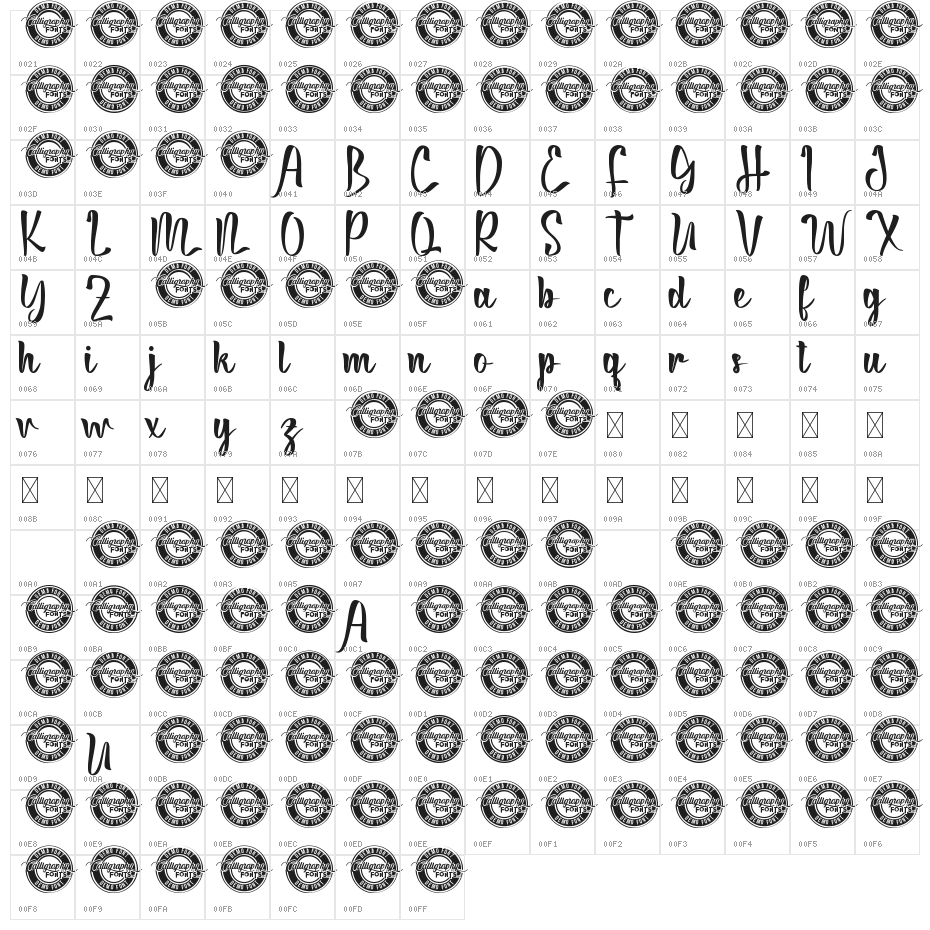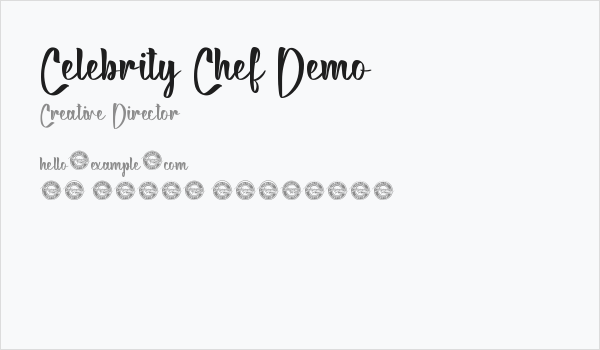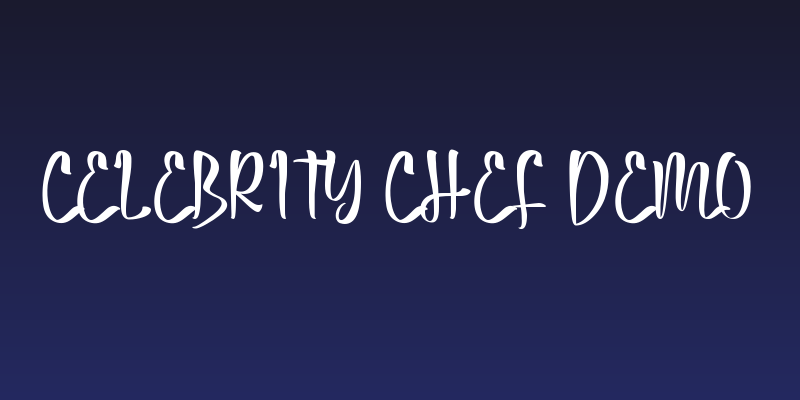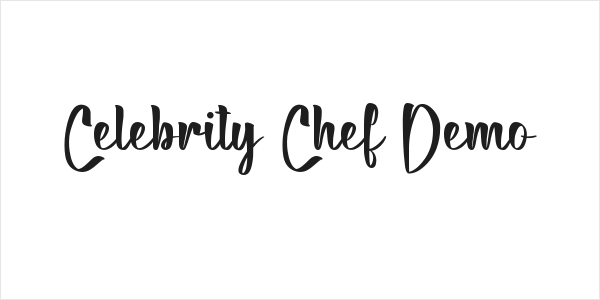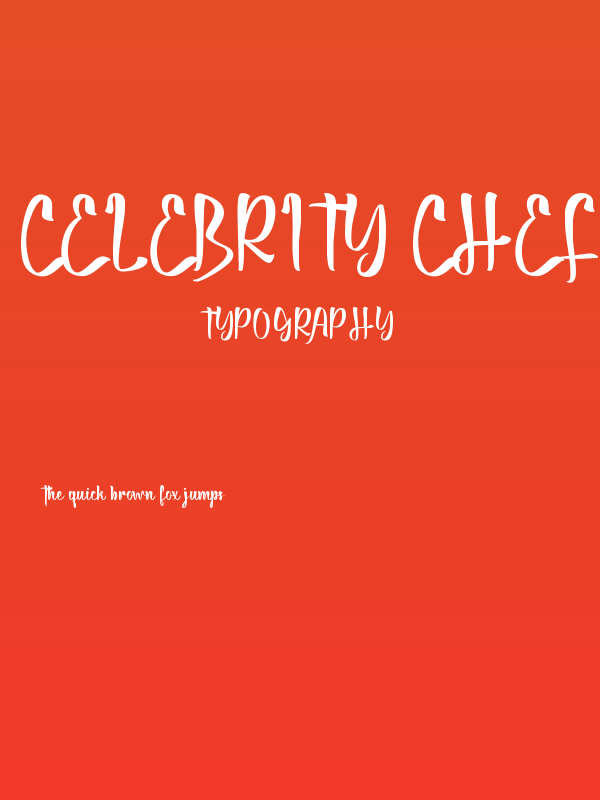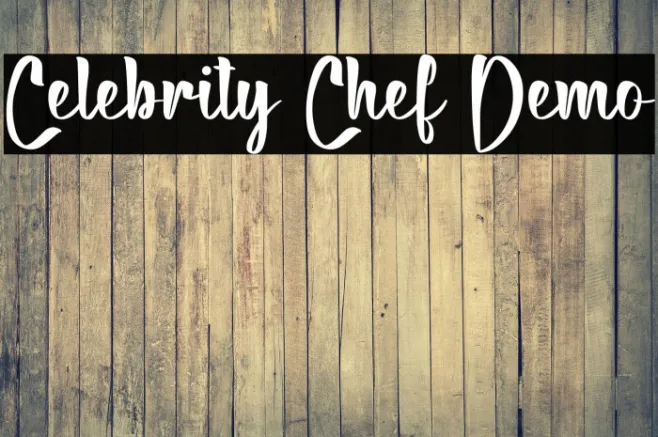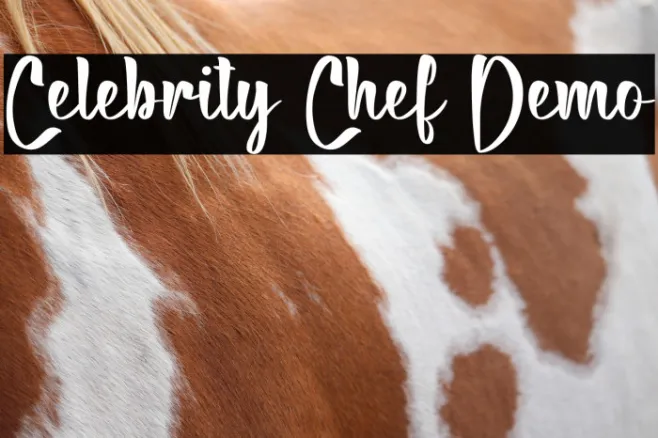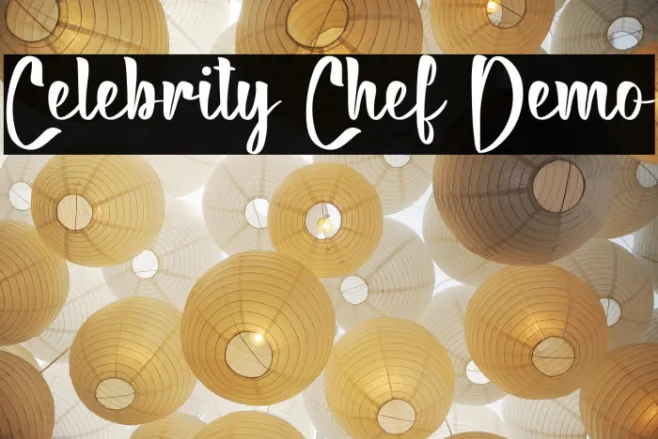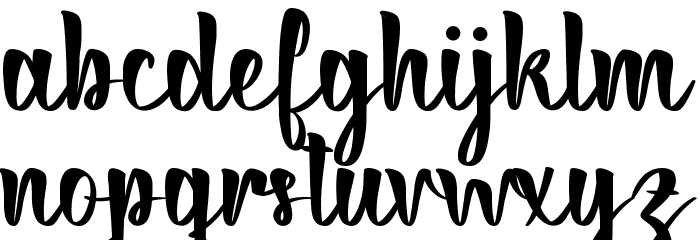
Celebrity Chef Demo Font
Celebrity Chef Demo Description
This font features a bold and expressive script style, characterized by its flowing, cursive letterforms that exude a sense of elegance and creativity. The uppercase letters are tall and slightly narrow, with distinctive loops and swashes that add a touch of flair. The lowercase letters maintain a consistent style, with smooth curves and a rhythmic flow that enhances readability while maintaining a decorative appeal. The font's overall appearance is both modern and artistic, making it suitable for a variety of design projects that require a personal and stylish touch. Its bold weight and medium contrast in stroke thickness contribute to its striking visual impact, ensuring that it stands out in any context.